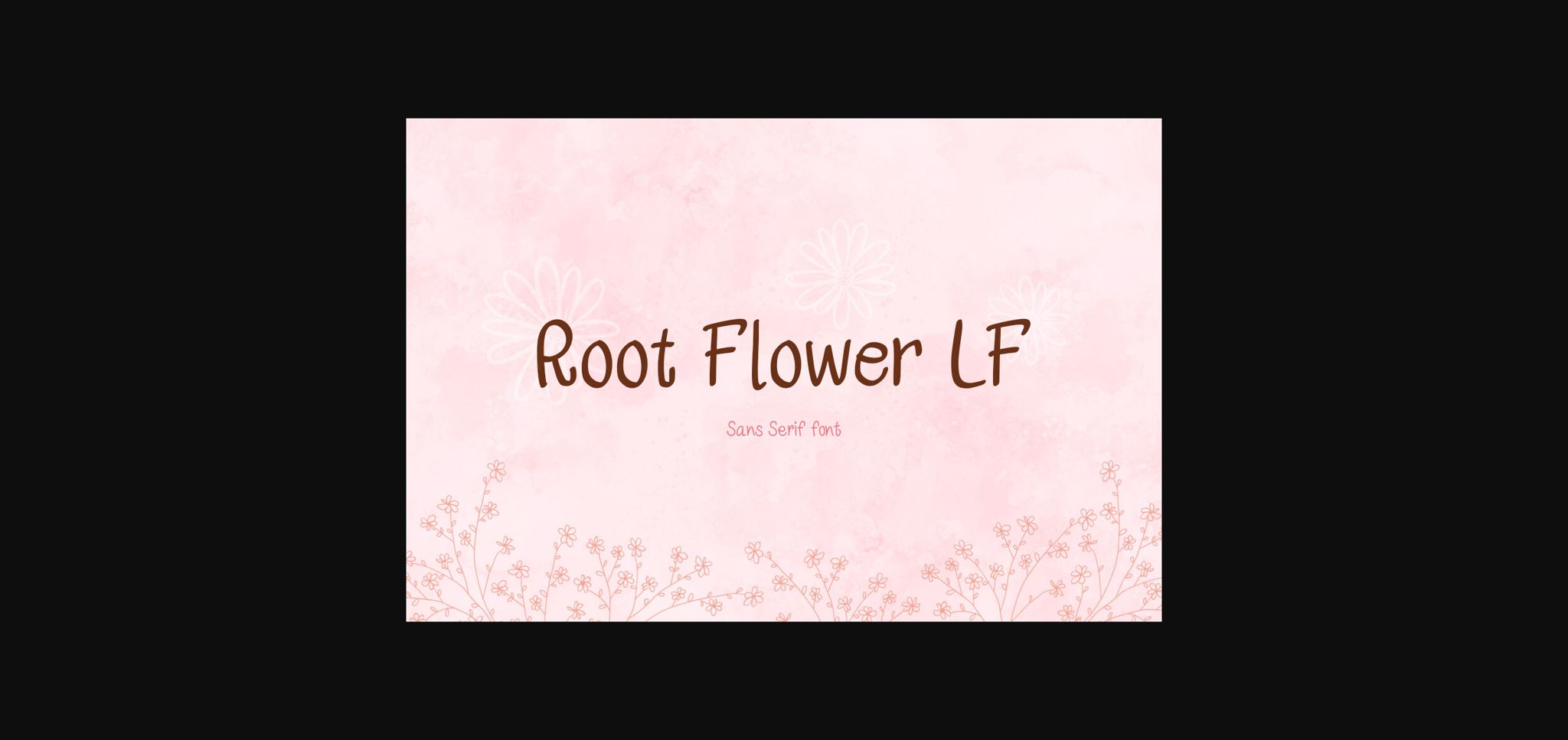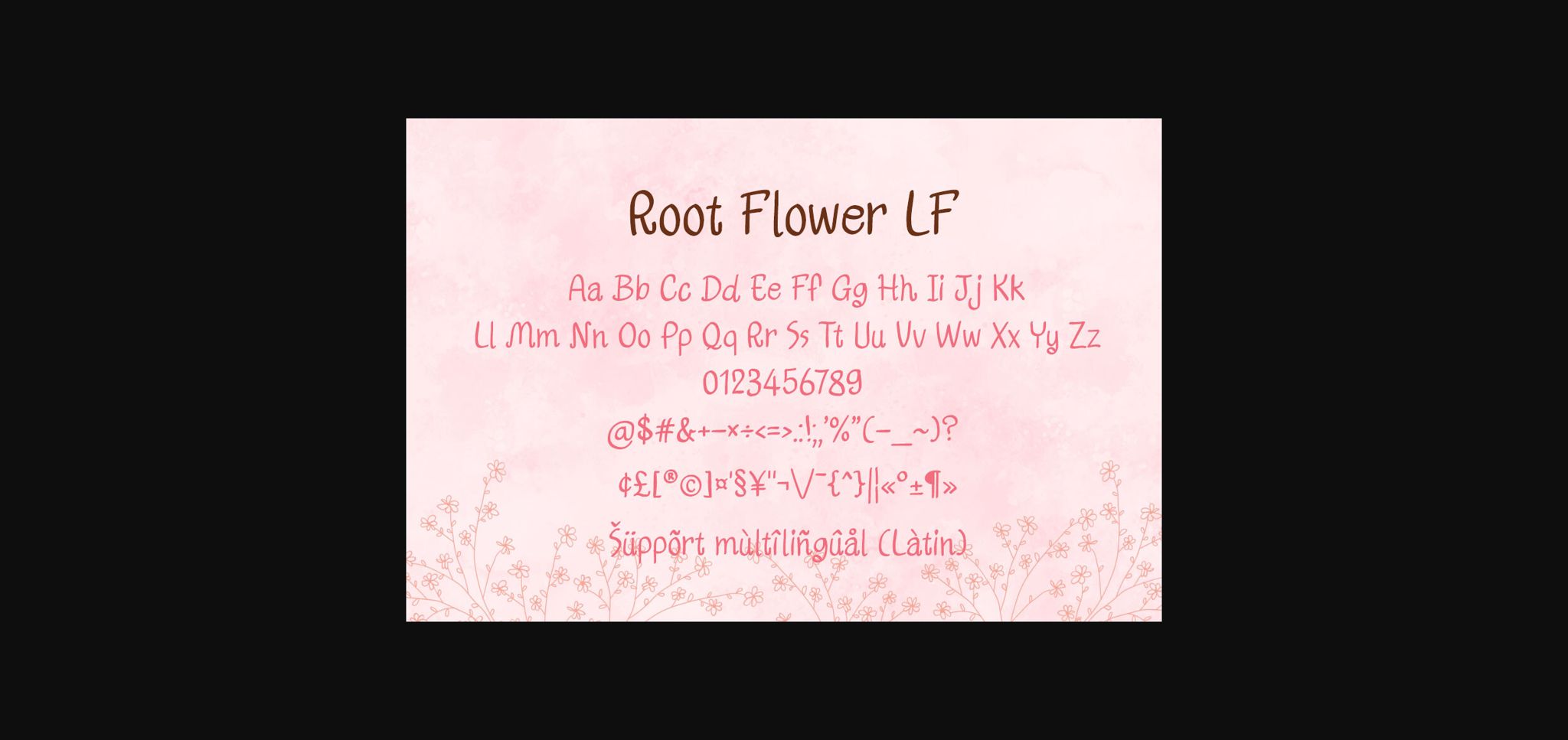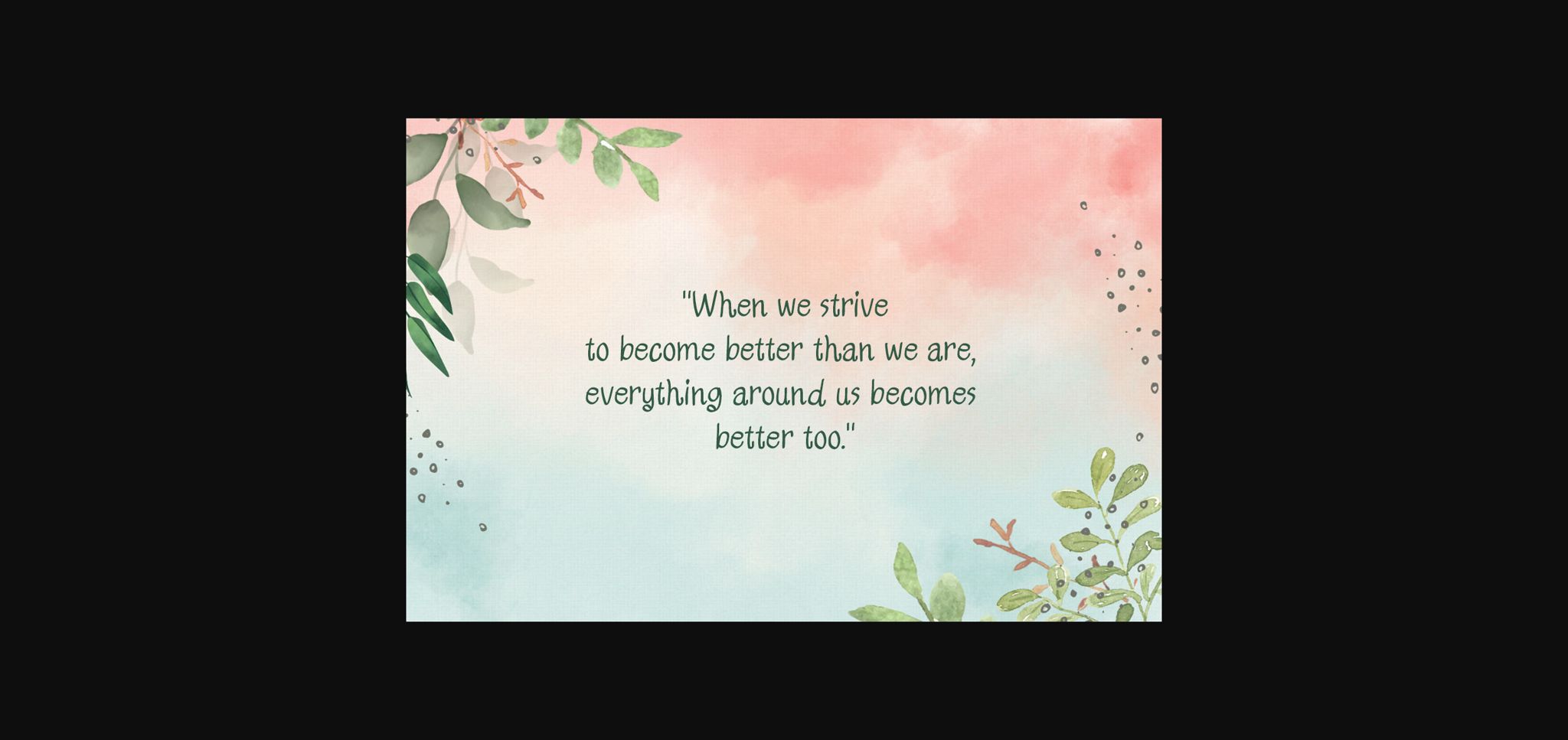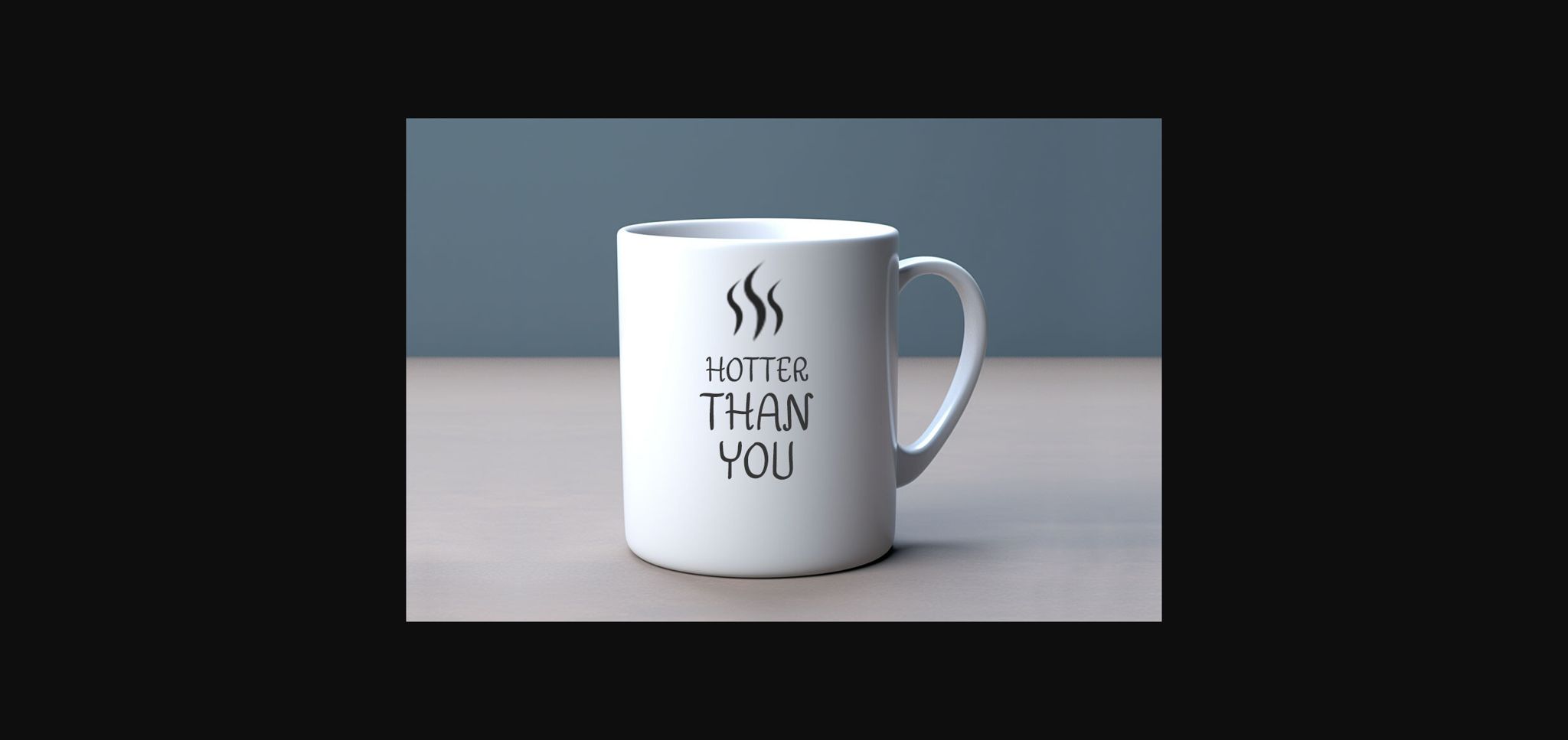
Root Flower Lf Font
About Root Flower Lf Font
Root Flower LF is a charming, Cheerful and modern sans serif font. It would be awesome to your fun projects or diary planner, on wedding invitations, thank you cards, quotes, greeting cards, logos, posters, social media posts, blogs, bag, T Shirt, clothing and many more!